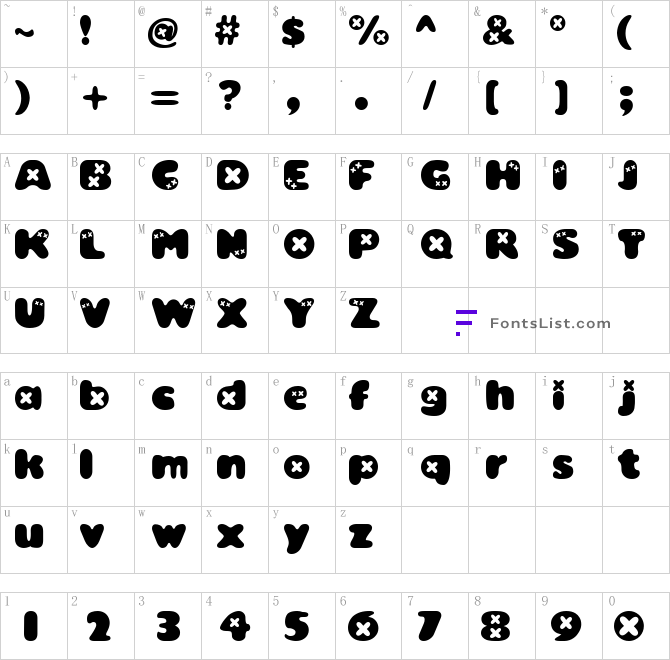
- Font Name:Bambino
Bambino-copy-1-.ttf is a very beautiful artistic font, Bambino-copy-1-.ttf is widely used in the design and printing of various books and pictures,Bambino-copy-1-.ttf has a strong visual impact,Bambino-copy-1-.ttf is a commonly used font in newspapers, magazines and books, and is used in posters, e-commerce Poster design, store design, logo design, font design and other fields.Bambino-copy-1-.